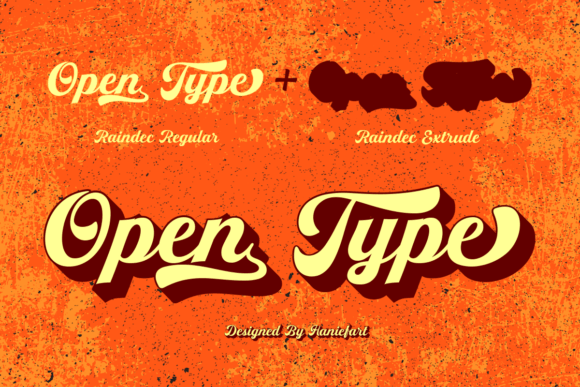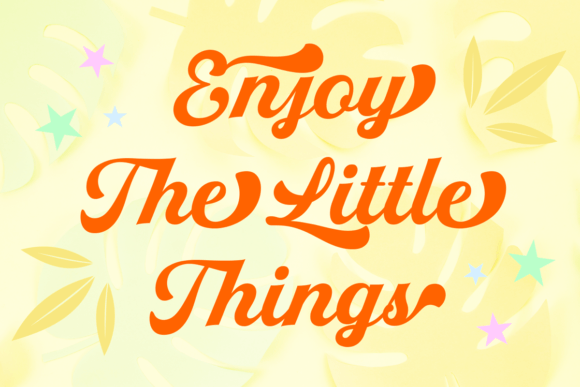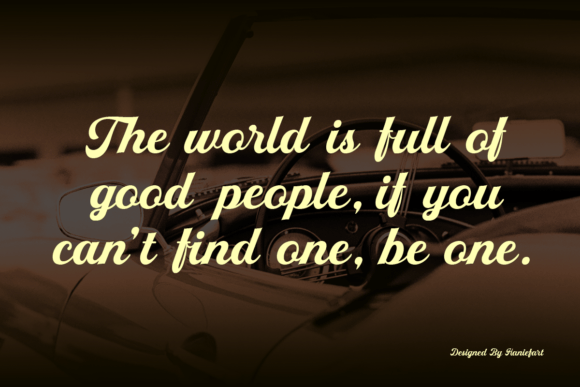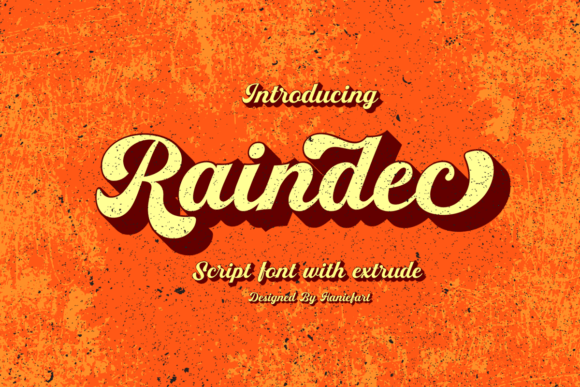
Introduction to Raindec Font
Raindec is a handcrafted script typeface, a font inspired by sign paintings, branding, t-shirts, flyers, and more, with a variety of interesting characters.
You can make Raindec feel personalized for your client’s projects Raindec script fonts can be used for magazines, clothing designs, logos, titles, flyers, and more.